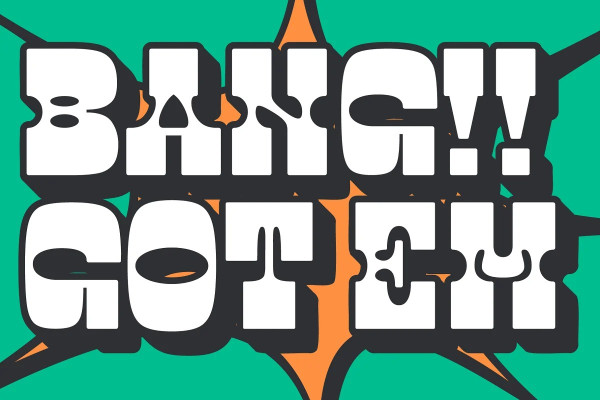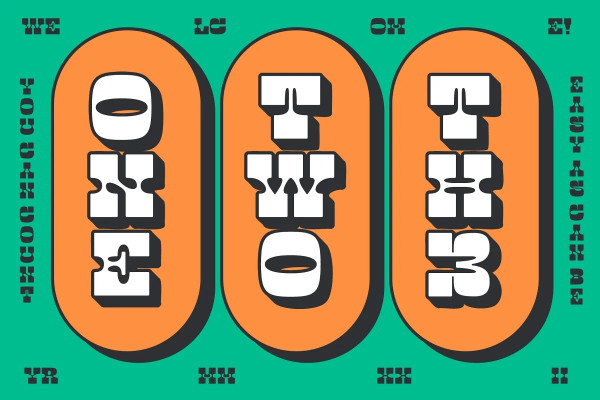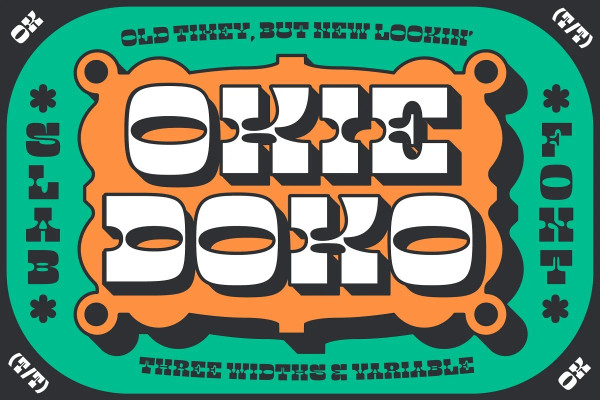
Okie Doko Font
Okie Doko Font, this display font is full of a lot of personalities. It’s inspired by retro western slab serifs taken into a modern realm with subtly rounded corners. Its quirky personality is perfect for cartoons and a laid-back designed aesthetic. and with a variable width, the versatility of this font helps it fit and fill any space. Use Okie Doko for cartoons, stickers, merch, Instagram, branding, posters. Font is as seen in the preview, The 3D look in the Thumbnails is an effect (Video Tutorial in Product)
Classification: Display Fonts, Slab Serif Fonts